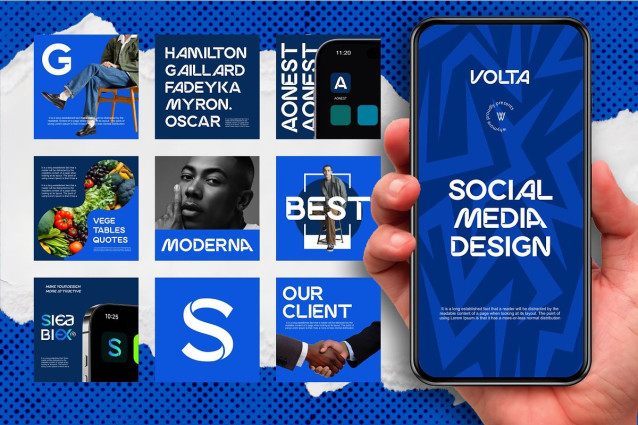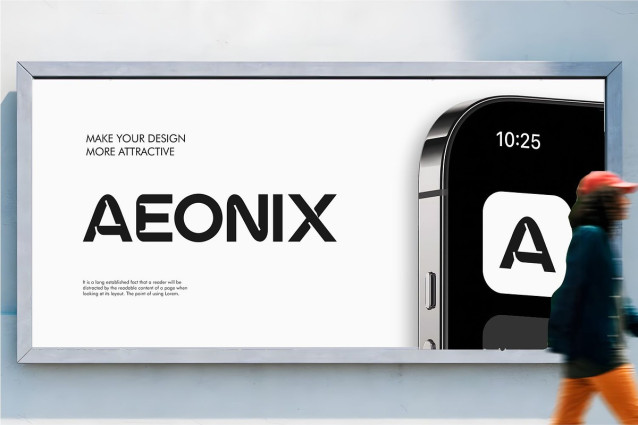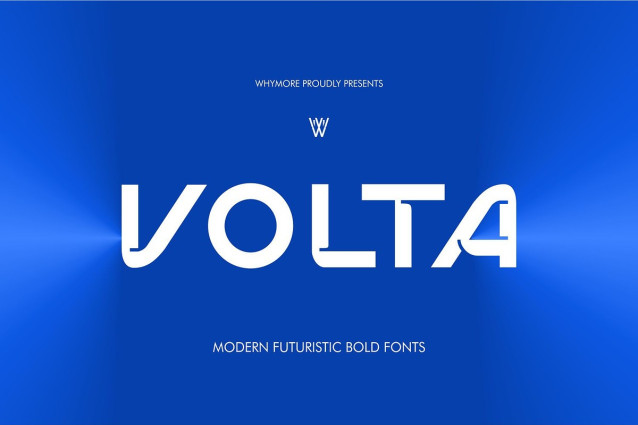
Volta Font
Volta Font is a bold, condensed, modern font with futuristic, sporty, and grunge touches. Designed for those who want their designs to look strong, professional, and stand out.